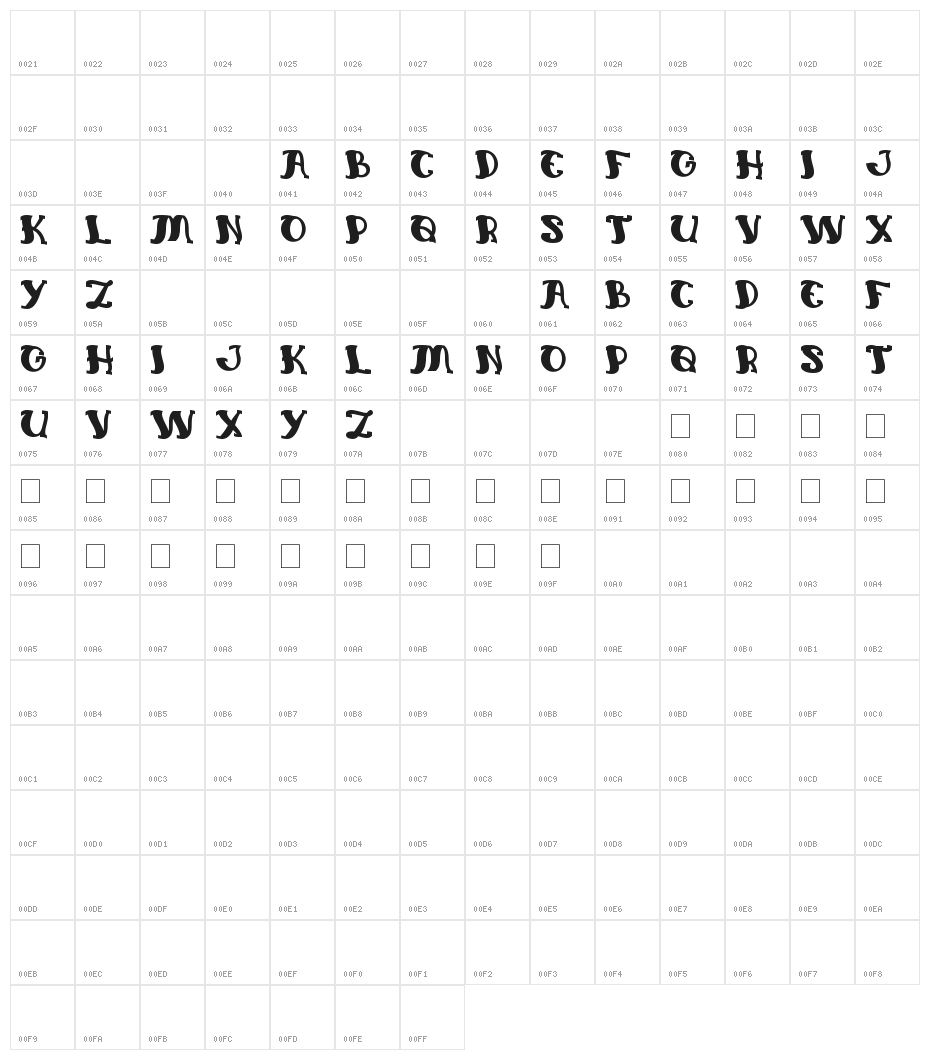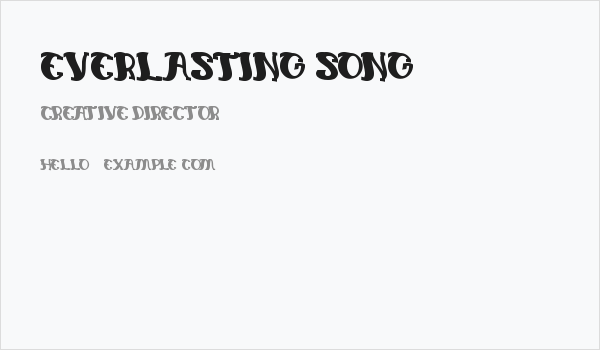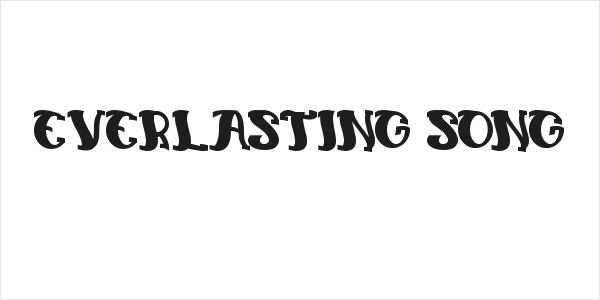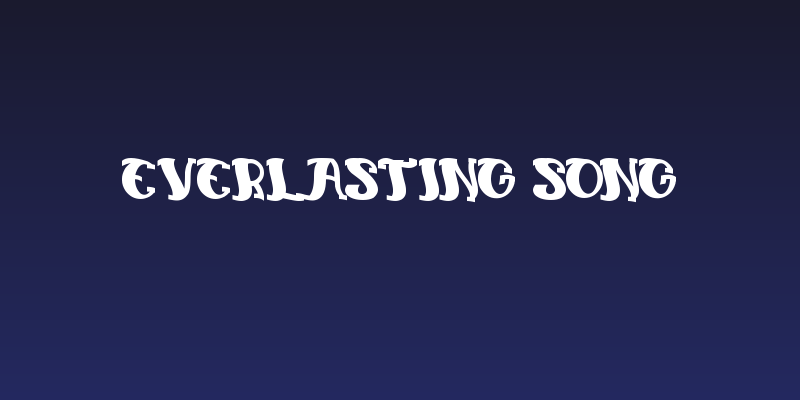
everlasting song Font
everlasting song Description
This font features a bold and decorative style with a playful, whimsical flair. The characters have a unique, artistic design with exaggerated curves and strokes, giving it a lively and dynamic appearance. The uppercase letters are particularly striking, with a strong presence and intricate detailing. The font maintains a consistent weight throughout, ensuring readability while still offering a distinct visual impact. Its decorative nature makes it suitable for creative and expressive projects.
| Proposed Projects | Ideal for posters, invitations, branding, and any project requiring a bold, artistic touch. |